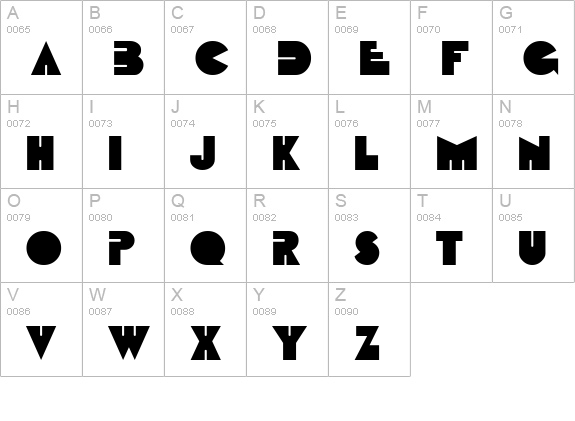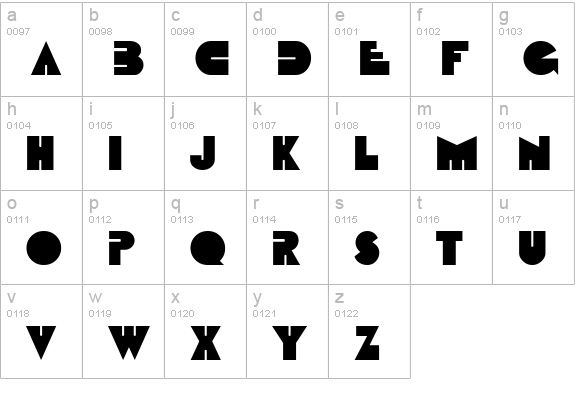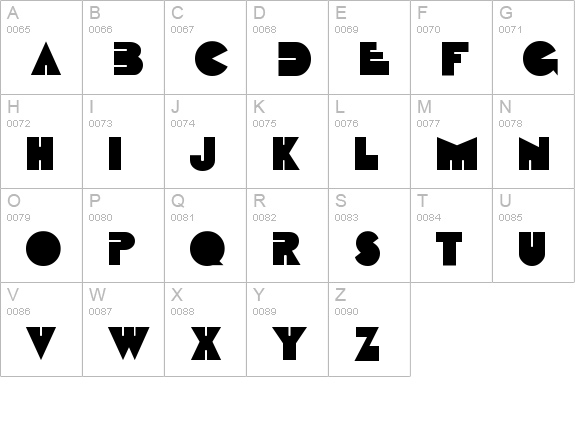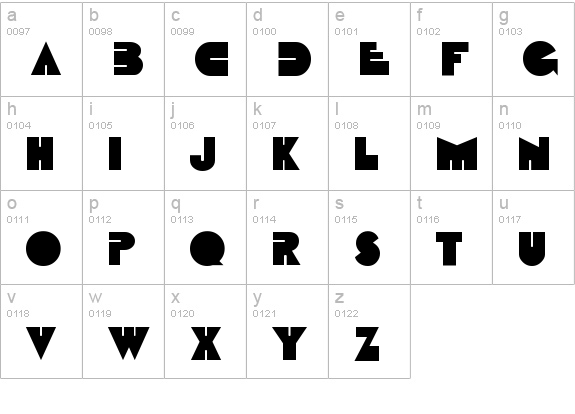
Fatso Normal is the standard, neutral variant in the Fatso typeface family \xE2\x80\x94 well suited to general body text, paragraphs, and standard typographic work.
Fatso Normal is a bold and eye-catching display font that exudes confidence and personality. With its thick, rounded letterforms, this font makes a strong statement and is perfect for headlines, posters, and branding projects. The generous spacing and smooth curves add a modern touch to any design, while maintaining readability and impact. Best of all, Fatso Normal is completely free to download at FontsMarket.com. Whether you're a designer looking to add some flair to your creations or a business owner in need of a distinctive font for your brand, Fatso Normal offers a versatile and stylish solution. Download it today and unleash your creativity with this unique and impactful typeface.